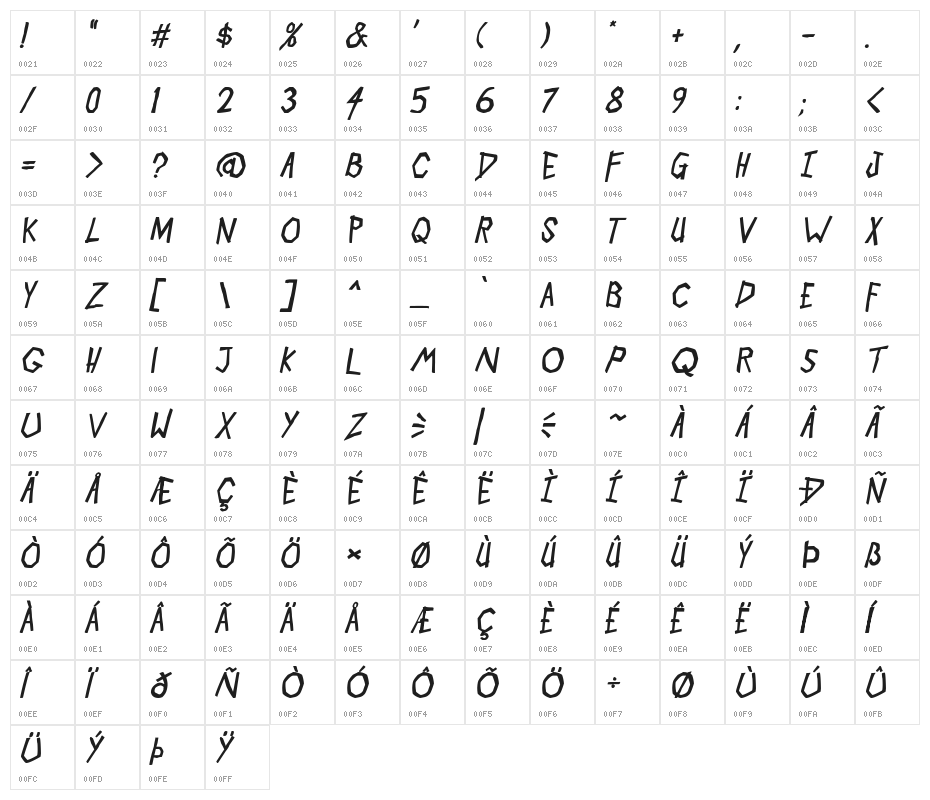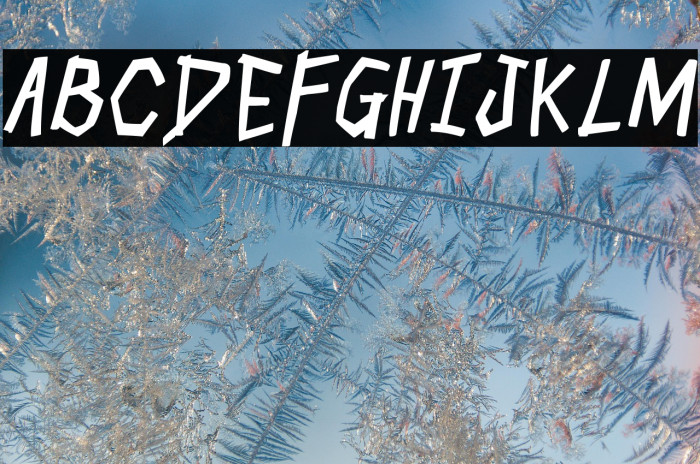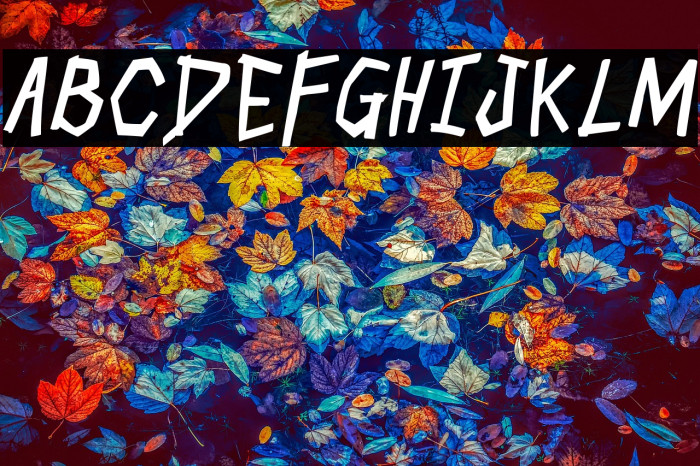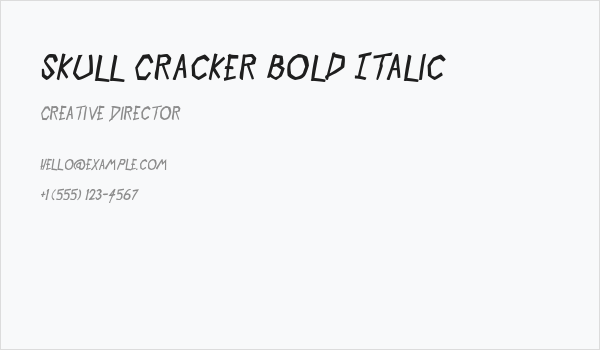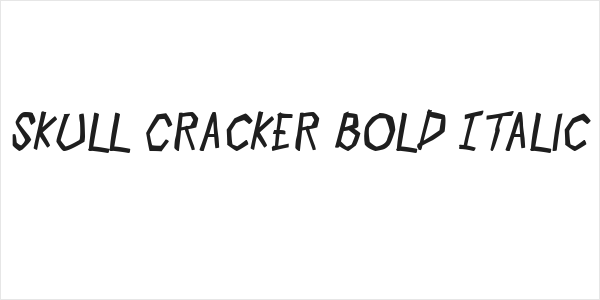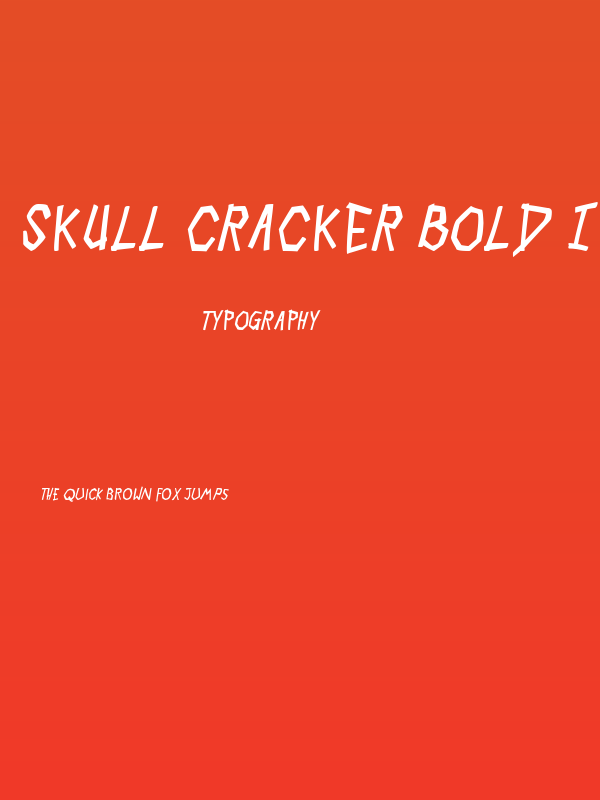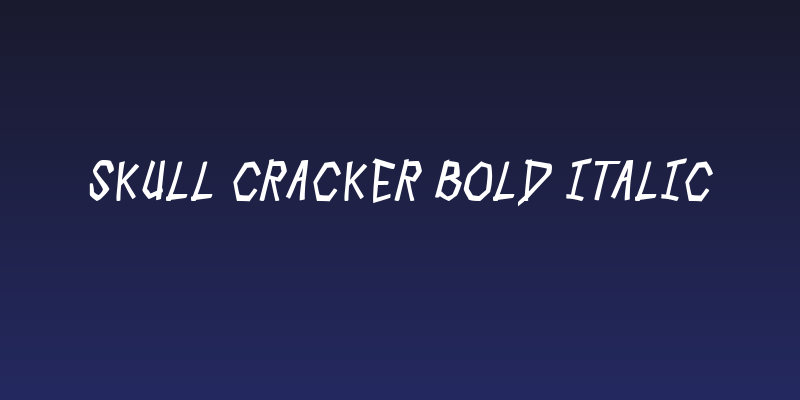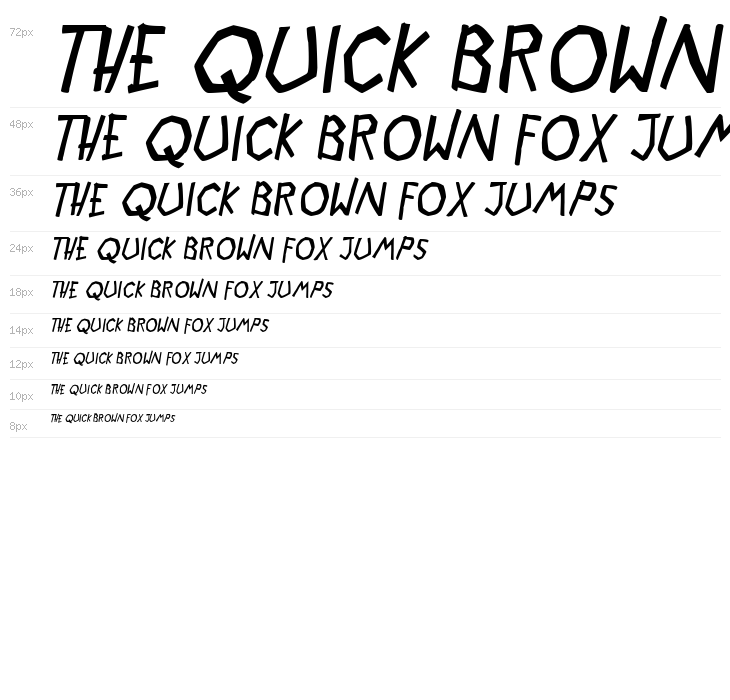
Skull Cracker Bold Italic Font
Skull Cracker Bold Italic Description
This font features a bold and italicized style with a distinctive, edgy appearance. The characters are angular and sharp, giving off a rebellious and dynamic vibe. The uppercase and lowercase letters maintain a consistent slant, enhancing the italic effect. Numbers and special characters follow the same bold and angular design, ensuring uniformity across the typeface. The font's unique style makes it stand out, ideal for projects that require a strong visual impact.
| Overall Style | Modern, Edgy |
| Proposed Projects | Perfect for album covers, posters, branding for edgy or alternative products, and any design needing a bold statement. |